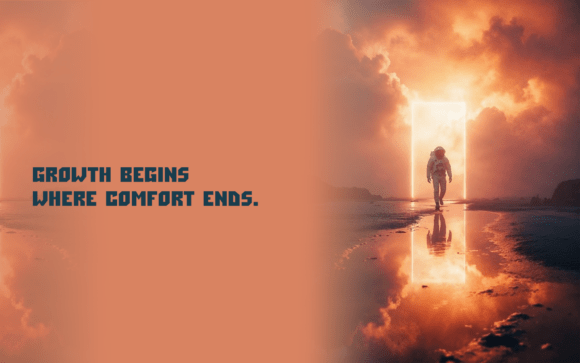
Introducing Clearvox Font: The Ultimate Choice for Modern Designers
In the world of typography, a font can make or break a design. It’s the voice that speaks to your audience, conveying your message with clarity and confidence. Say more with less using Clearvox, a bold sans-serif font crafted specifically for designers and crafters who demand precision and impact. In this article, we’ll dive into the world of Clearvox, exploring its features, benefits, and applications that make it an indispensable tool for modern design.
Clean, Modern Impact with Zero Noise
Clearvox is built on the principles of simplicity and legibility. Its clean lines, precise curves, and carefully crafted letterforms ensure that your message is delivered with crystal clarity, free from distractions. This bold sans-serif font is designed to cut through the noise, making it perfect for startups looking to establish a strong brand presence, as well as for designers seeking to create impactful statements.
Seamless Adaptation Across Platforms
In today’s digital age, designers need fonts that can adapt seamlessly across various platforms, from digital screens to printed materials. Clearvox rises to the challenge, offering precision-crafted typography that looks stunning in any context. Whether you’re designing a website, a brochure, or a business card, Clearvox ensures that your message is conveyed with consistency and style.
Understated yet Unforgettable
Clearvox strikes the perfect balance between being understated and unforgettable. Its subtle nuances and elegant curves make it a versatile font suitable for a wide range of applications, from corporate branding to creative projects. With Clearvox, you can create designs that are both memorable and tasteful, leaving a lasting impression on your audience.
Features and Benefits of Clearvox Font
- Bold sans-serif design: Perfect for making statements and establishing a strong brand presence.
- Clean and modern aesthetic: Ensures clarity and legibility across digital and printed materials.
- Precision-crafted typography: Adapts seamlessly across various platforms and devices.
- Versatile and elegant: Suitable for a wide range of applications, from corporate branding to creative projects.
- Easy to read and understand: Ideal for designers and crafters who want to communicate their message with clarity and confidence.
Applications of Clearvox Font
Clearvox is an incredibly versatile font, suitable for a wide range of applications, including:
- Branding and logos: Establish a strong brand presence with a bold and memorable font.
- Digital design: Create stunning websites, mobile apps, and social media graphics with Clearvox’s precision-crafted typography.
- Printed materials: Use Clearvox for brochures, business cards, and other printed materials that require a clean and modern aesthetic.
- Advertising and marketing: Make a lasting impression with Clearvox’s bold and attention-grabbing typography.
| Font Name | Clearvox Font |
| Author | nihadmekdad |
In conclusion, Clearvox is a game-changing font that offers a unique combination of clarity, confidence, and style. Its bold sans-serif design, precision-crafted typography, and versatility make it an indispensable tool for modern designers and crafters. Whether you’re looking to establish a strong brand presence, create impactful statements, or simply communicate your message with clarity and confidence, Clearvox is the perfect choice. Say more with less using Clearvox, the voice of modern design.